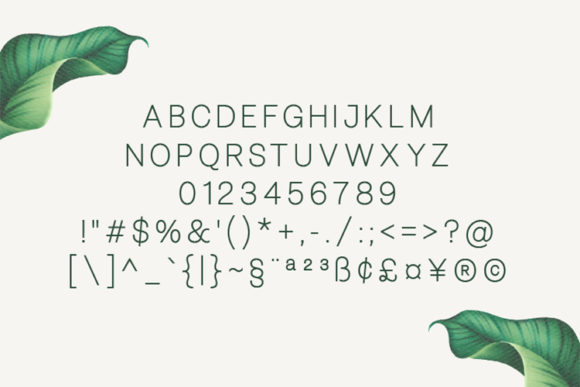
Bellezza Light Font: Elevate Your Design with Modern Elegance
In the realm of typography, the right font can make all the difference in transforming a design from ordinary to extraordinary. For those seeking a modern sans serif with a geometric touch, Bellezza Light Font emerges as an exceptional choice. This elegant typeface is perfectly suited for graphic design and display purposes, offering a versatile solution for creatives looking to infuse their projects with sophistication and style.
Discovering Bellezza Light Font
Bellezza Light Font is part of the broader Bellezza font family, which is characterized by its clean lines, geometric shapes, and a distinctly modern aesthetic. The light variant of this font family brings a delicate touch to the geometric sans serif genre, making it ideal for designs that require a subtle yet impactful typographic solution.
Key Features of Bellezza Light Font
- Geometric Touch: Bellezza Light Font incorporates geometric elements that give it a unique and contemporary look. This feature makes it stand out in the sans serif category and provides a fresh alternative for designers.
- Modern Sans Serif: As a modern sans serif font, Bellezza Light offers a clean and straightforward appearance that works well in a variety of design contexts, from digital interfaces to print materials.
- Elegance and Readability: The light weight of this font adds an element of elegance, making it suitable for designs that require a sophisticated look. Despite its light appearance, Bellezza maintains excellent readability, ensuring that messages are conveyed clearly and effectively.
- Versatility: Bellezza Light Font is incredibly versatile, making it a valuable addition to any designer’s toolkit. It can be used for a wide range of projects, including branding, advertising, web design, and more.
Applications of Bellezza Light Font
The applications of Bellezza Light Font are vast, given its versatile nature. Here are some of the key areas where this font can make a significant impact:
- Graphic Design: For graphic designers looking for a font that combines modernity with elegance, Bellezza Light is an excellent choice. It can be used for logos, brochures, posters, and any other graphic design project that requires a touch of sophistication.
- Display Purposes: The font’s design makes it particularly well-suited for display purposes. Whether it’s for headlines, titles, or any other prominent text in a design, Bellezza Light Font can help grab attention and make a lasting impression.
- Digital and Print Media: Bellezza Light Font is highly adaptable, performing well in both digital and print media. Its clear and clean lines ensure that it looks great on screens and in print, making it a versatile choice for a wide range of projects.
Tips for Using Bellezza Light Font
To make the most of Bellezza Light Font, consider the following tips:
- Pair with Contrasting Fonts: For maximum impact, pair Bellezza Light with fonts that have a contrasting style. This will help create visual interest and hierarchy in your designs.
- Experiment with Colors: Don’t be afraid to experiment with different colors. Bellezza Light Font works well with a variety of color schemes, from monochromatic to vibrant palettes.
- Pay Attention to Spacing: Given its light nature, ensure that you pay attention to spacing and kerning. Proper spacing will enhance readability and overall aesthetic appeal.
Bellezza Light Font offers a unique blend of modern sans serif characteristics and geometric elegance, making it a powerful tool for designers. Its versatility, readability, and sophisticated appearance make it an ideal choice for a wide range of design projects. Whether you’re working on graphic design, display text, or any other project that requires a modern and elegant typographic solution, Bellezza Light Font is definitely worth considering. With its ability to elevate designs and add a touch of sophistication, Bellezza Light Font is poised to become a favorite among designers and crafters alike.